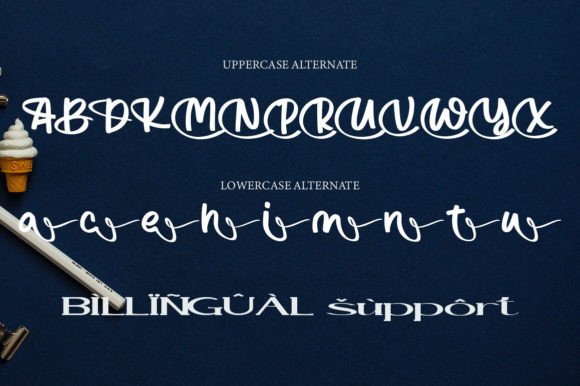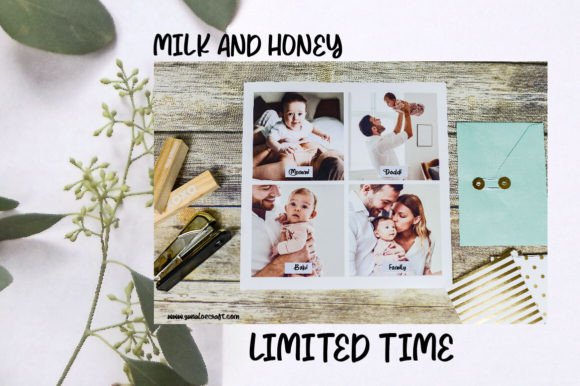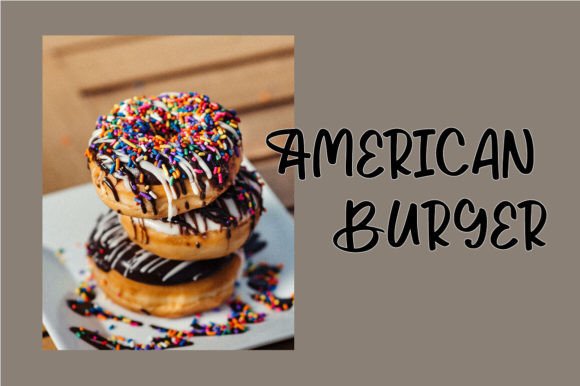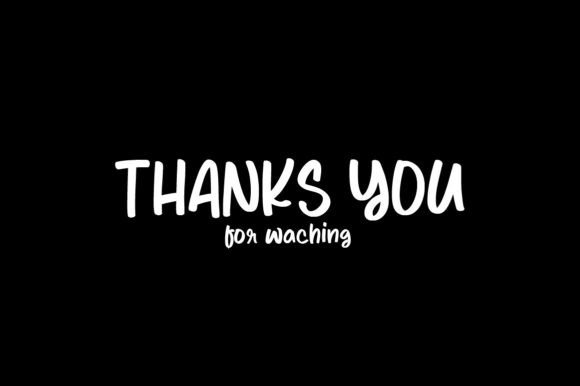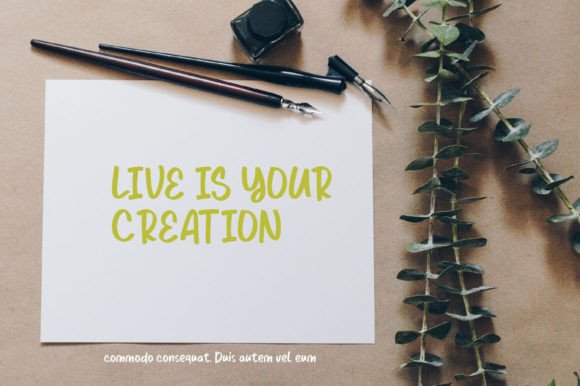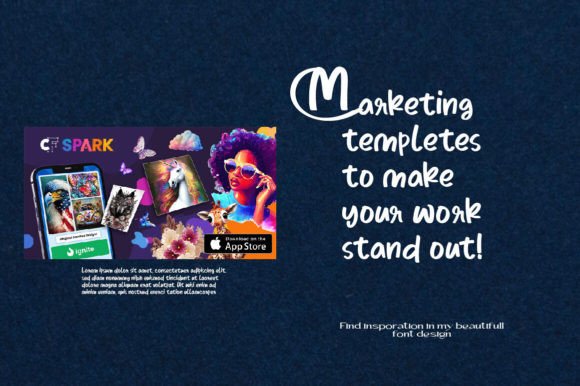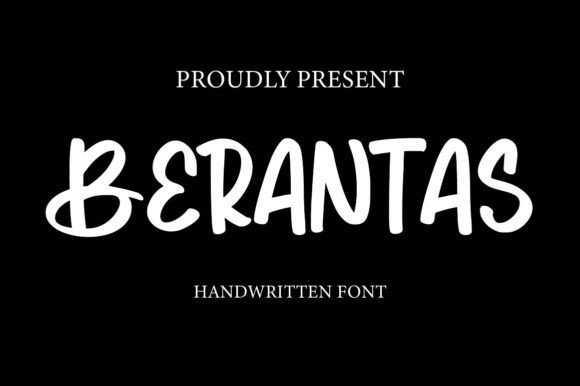
Discover the Charm of Berantas Font: A Sweet and Friendly Handwritten Delight
Are you on the hunt for a font that can add a touch of warmth and personality to your designs? Look no further than Berantas Font, a sweet and friendly handwritten font that’s sure to capture your heart. With its natural and unique style, Berantas is incredibly versatile and can be used in a wide range of design projects. The only limit is your imagination!
Handwritten fonts have a way of adding a personal touch to any design. They evoke feelings of warmth, comfort, and approachability, making them perfect for projects that require a human touch. Berantas Font is no exception. Its delicate strokes and charming letterforms make it a joy to use in a variety of design applications.
What Makes Berantas Font So Special?
So, what sets Berantas Font apart from other handwritten fonts? Here are just a few things that make it special:
- Unique Style: Berantas Font has a one-of-a-kind style that’s both natural and elegant. Its unique letterforms and flowing strokes make it perfect for designs that require a touch of sophistication.
- Versatility: Berantas Font is incredibly versatile and can be used in a wide range of design projects, from branding and packaging to scrapbooking and journaling.
- Easy to Read: Despite its delicate nature, Berantas Font is surprisingly easy to read, making it perfect for body text and other applications where legibility is key.
Using Berantas Font in Your Designs
Berantas Font is perfect for designers and crafters who want to add a touch of personality to their work. Here are just a few ideas for using Berantas Font in your designs:
- Branding and Packaging: Use Berantas Font to create custom logos, labels, and packaging that stands out from the crowd.
- Scrapbooking and Journaling: Add a personal touch to your scrapbooking and journaling projects with Berantas Font’s charming letterforms and delicate strokes.
- Wedding and Party Decor: Use Berantas Font to create beautiful wedding invitations, party decorations, and other celebratory materials.
Tips for Getting the Most Out of Berantas Font
Here are a few tips for getting the most out of Berantas Font:
- Experiment with Colors: Berantas Font looks great in a variety of colors, so don’t be afraid to experiment and find the perfect hue for your design.
- Mix and Match: Combine Berantas Font with other fonts and design elements to create a unique and eye-catching look.
- Pay Attention to Kerning: Make sure to adjust the kerning on your text to ensure that Berantas Font looks its best.
Berantas Font is a sweet and friendly handwritten font that’s perfect for designers and crafters who want to add a touch of personality to their work. With its natural and unique style, Berantas is incredibly versatile and can be used in a wide range of design projects. So why wait? Download Berantas Font today and start creating beautiful, one-of-a-kind designs that capture the heart and imagination!
Whether you’re a seasoned designer or a crafty DIY enthusiast, Berantas Font is sure to become a favorite in your collection. So go ahead, get creative, and see what amazing things you can do with Berantas Font!